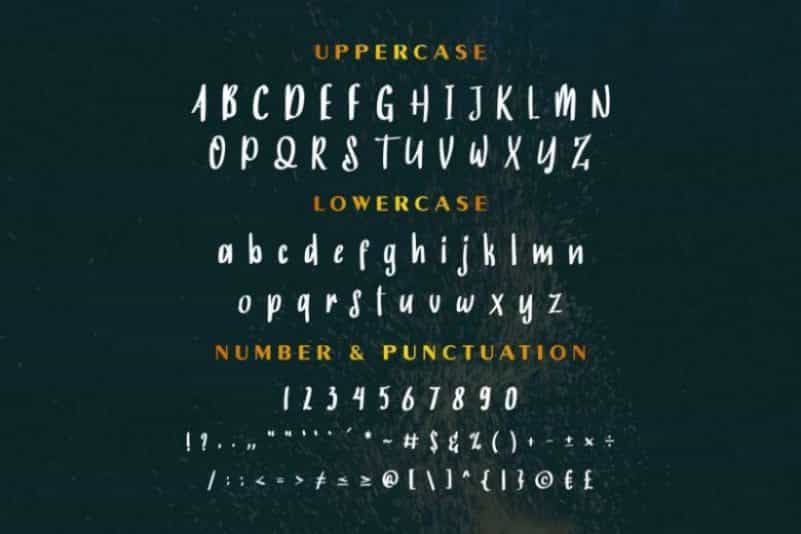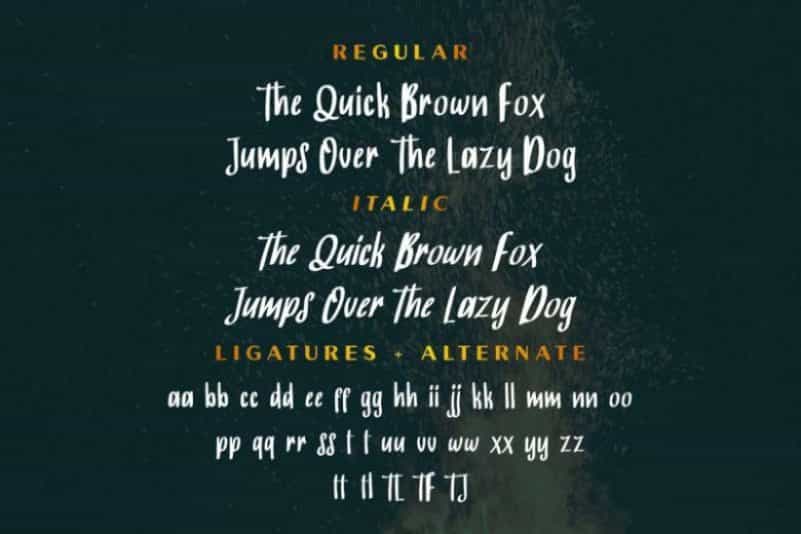
BurningSun is a modern decorative handwritten script font with a look of marker brush lettering. It features an individual, tasteful and one-and-only style. Great for many industries and projects : Wedding, professional, person name, signature, modern, law firm, makeup artist, photography, travel, hotel, fashion, cafe, cake-food etc.